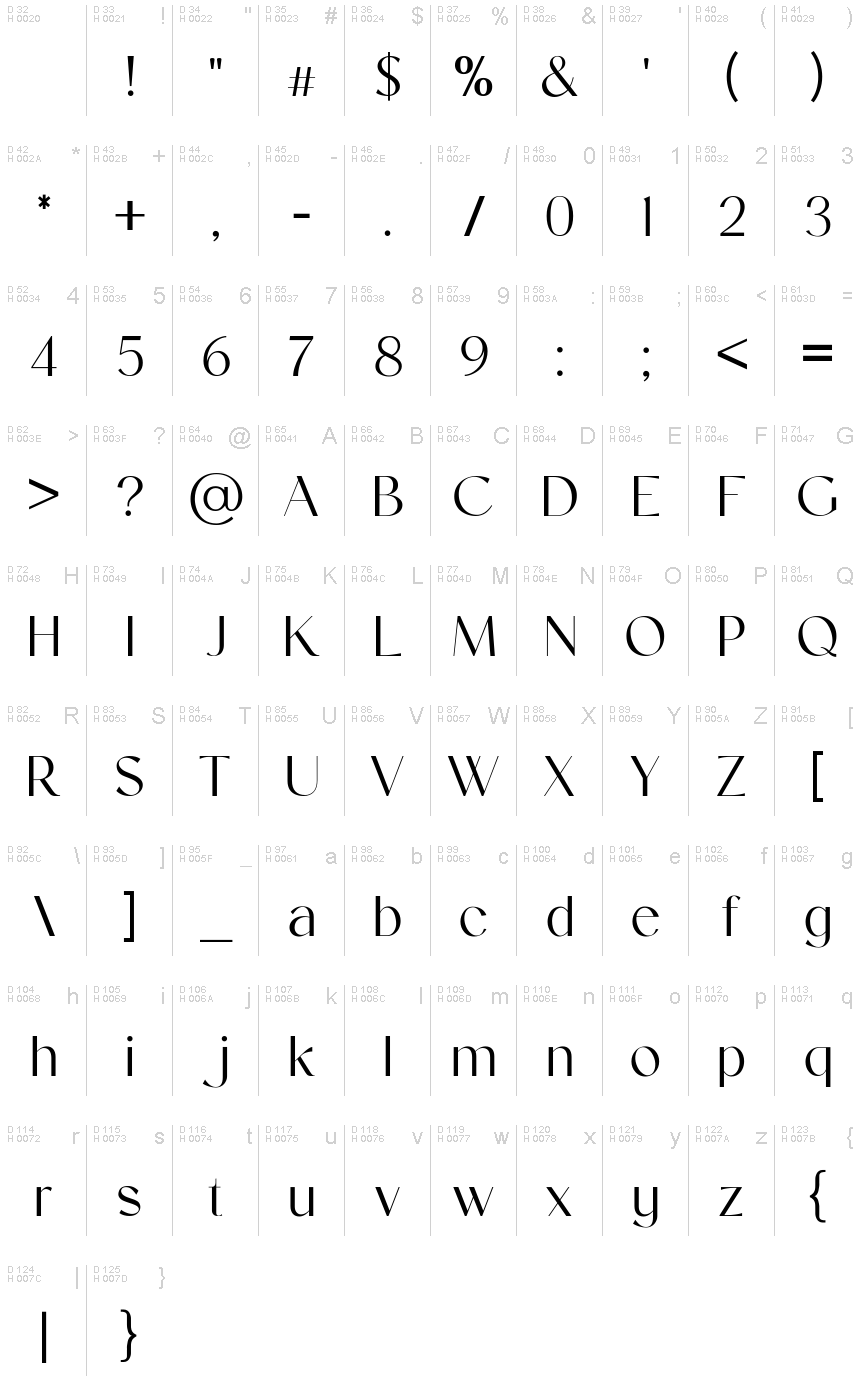
APHRODITE
Aphrodite, crafted by UI Creative, embodies a captivating sans-serif aesthetic. Its refined, elegant lines and balanced proportions exude a timeless charm, inviting viewers to bask in its sophisticated allure. The font's carefully curated letterforms seamlessly blend modern sensibilities with a touch of classical elegance, making it a standout choice for a wide range of design projects.
The versatility of Aphrodite shines through its ability to adapt to diverse design contexts. Its clean, legible structure lends itself effortlessly to headlines, titles, and impactful textual elements, while its refined personality makes it a natural fit for branding, editorial layouts, and high-end visual communications. Aphrodite's versatility extends to both digital and print mediums, ensuring a consistent, visually engaging experience across various touchpoints.